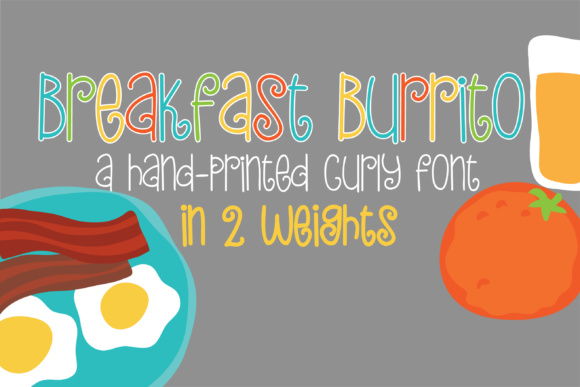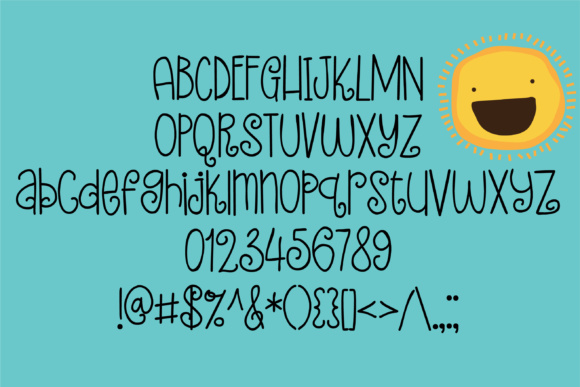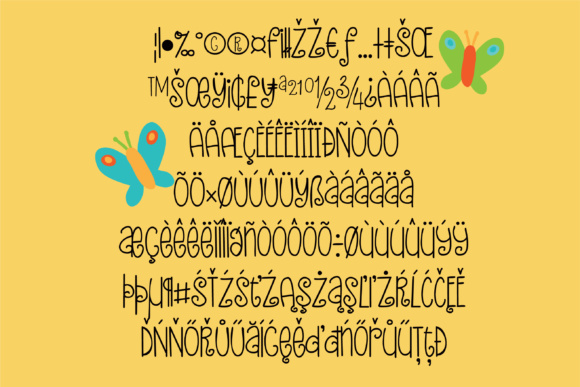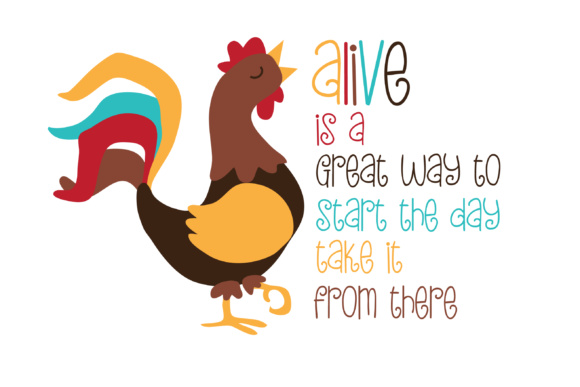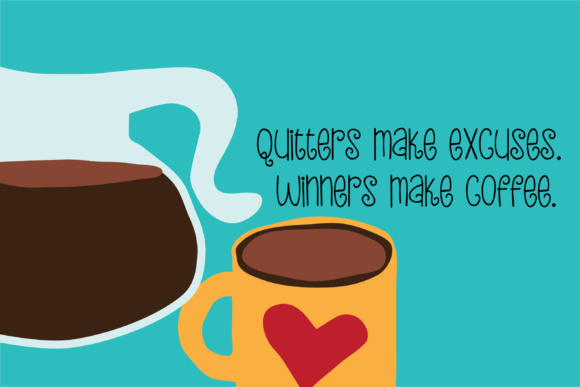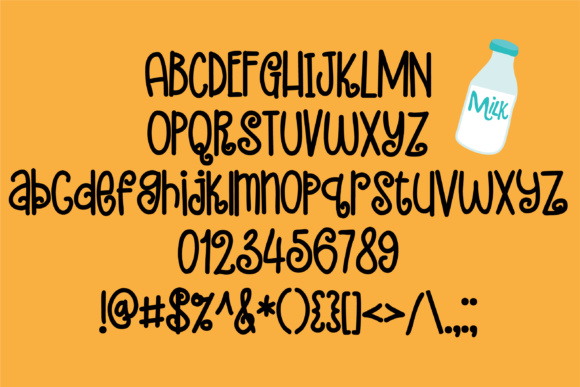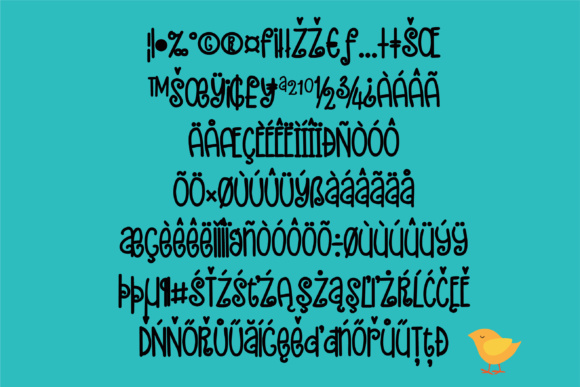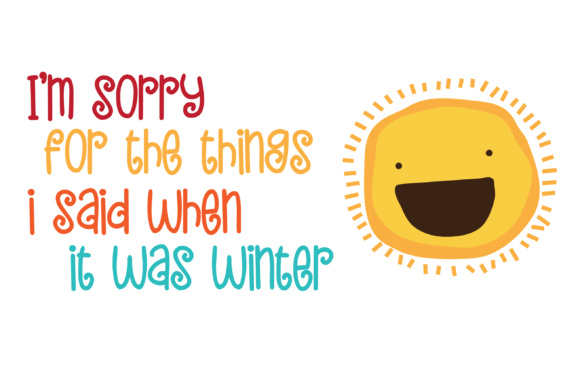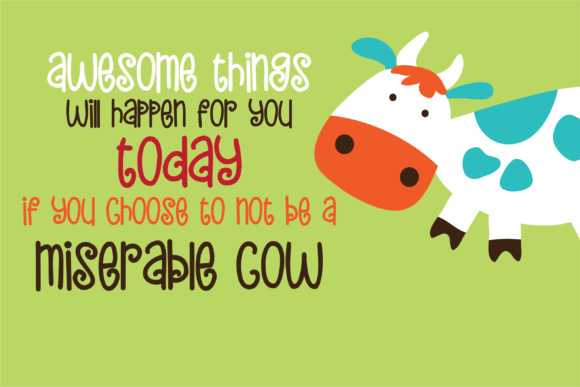
PN Breakfast Burrito Font
About PN Breakfast Burrito Font
This whimsical font is sporting a few curls and has no real descenders in the lowercase. The font comes in 2 weights: regular and bold.